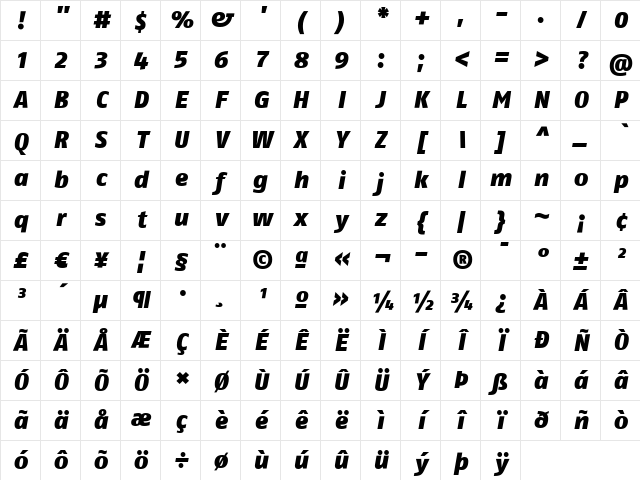
FagoNoLf ItalicHeavy Free Font
FagoNoLf ItalicHeavy
Style: ItalicHeavy
Foundry: Ole Schaefer, . Published by FontShop International for FontFont Release Fago is a trademark of FSI Fonts and Software GmbH
Design Context for FagoNoLf
FagoNoLf is a composed and adaptable typeface that performs quietly and consistently across a wide range of design contexts. The slanted form adds forward momentum and visual energy.
Pro Tip: Use FagoNoLf for emphasis, pull quotes, and subheadings where its slanted energy can add rhythm to the layout.
Who designed the FagoNoLf ItalicHeavy font?